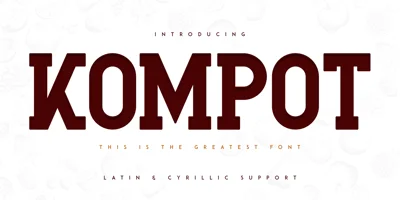
Kompot Slab Font
Kompot Slab Font is perfect for traditional recipe collections, Eastern European restaurant branding, homemade preserves packaging, artisanal food product labels, farmhouse kitchen designs, and authentic comfort food marketing campaigns. Its hearty character makes it ideal for traditional food producers, heritage recipe publishers, artisanal jam makers, Eastern European cultural centers, and any application requiring wholesome typography that conveys homemade tradition, culinary heritage, and the warm comfort of traditional preserved foods and family recipes.
Kompot Slab Font is exciting because it captures the wholesome tradition and culinary heritage of homemade preserves through robustly crafted letterforms that evoke the satisfying process of traditional food preservation and the warm comfort of family kitchens. Its hearty proportions and kitchen-inspired details reflect the time-honored traditions of seasonal food preservation and the loving care that goes into creating homemade culinary treasures, making it perfect for brands celebrating authentic food traditions. The font's traditional character transforms communications into expressions of culinary heritage.
Kompot Slab Font family includes kitchen-ready weight variations typically featuring Regular, Medium, Bold, and Black options with traditional styling that maintains culinary authenticity. The family often incorporates culinary symbols, kitchen elements, and food preservation icons designed for traditional food applications, providing designers with comprehensive tools for creating authentic, food heritage-focused typographic compositions.
When selecting traditional culinary typography solutions, Kompot Slab Font represents an exceptional choice for food heritage and traditional cooking projects. This wholesome typeface brings instant culinary tradition authenticity to any design, making it invaluable for traditional food producers, heritage cookbook publishers, and artisanal food brands celebrating homemade traditions. Whether you're developing traditional food product branding, creating heritage recipe collections, or designing artisanal food packaging, Kompot Slab Font provides the culinary heritage and traditional authenticity essential for connecting with food tradition enthusiasts in today's artisanal food marketplace.